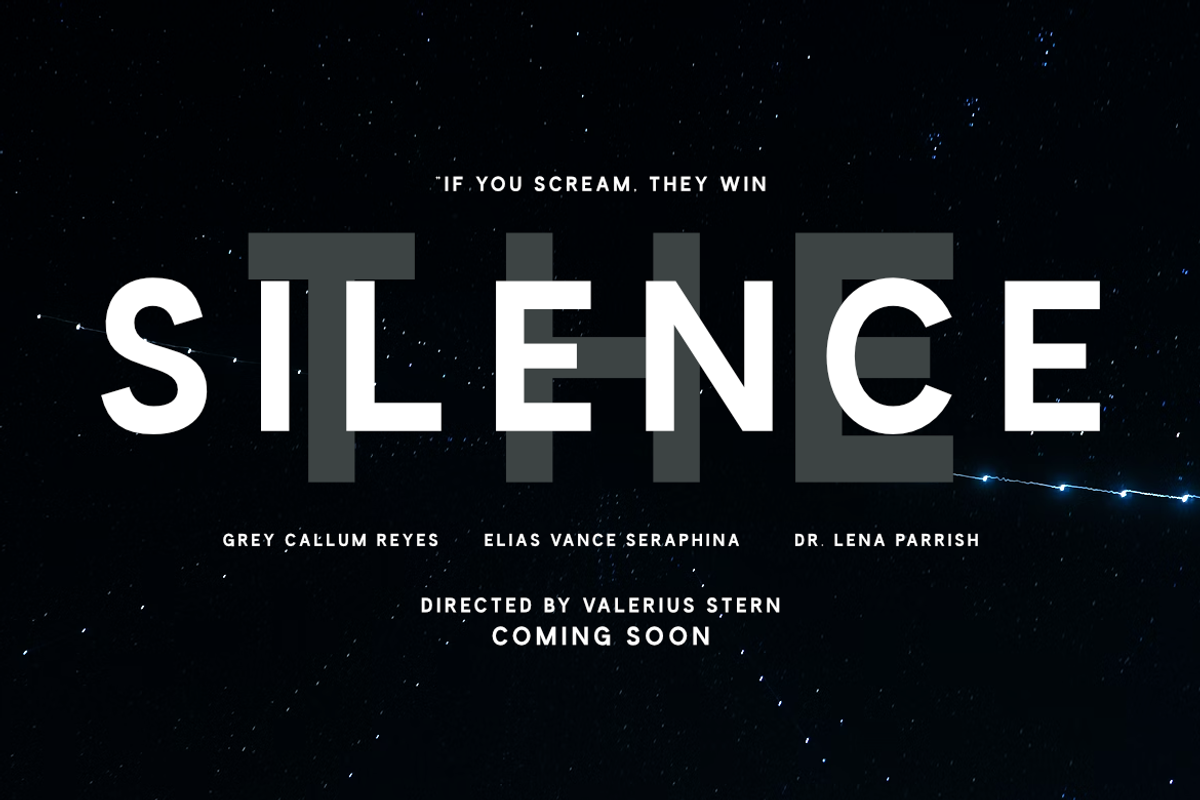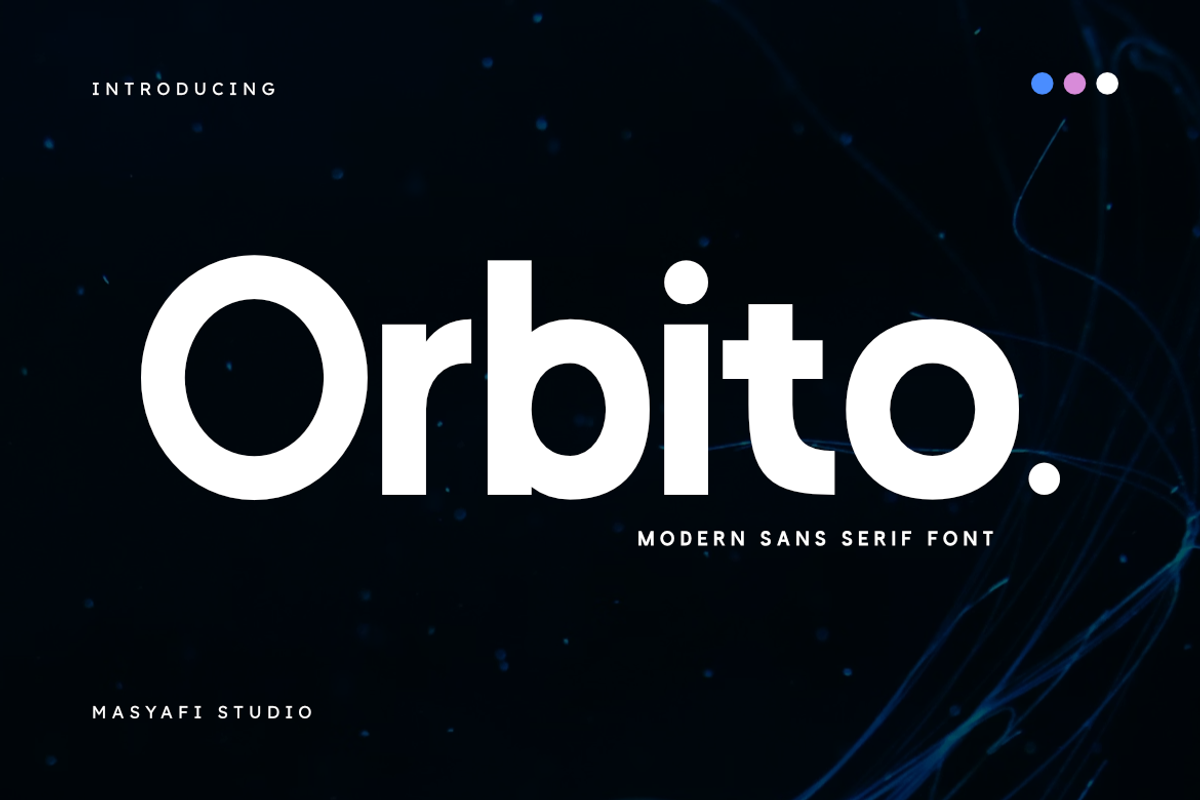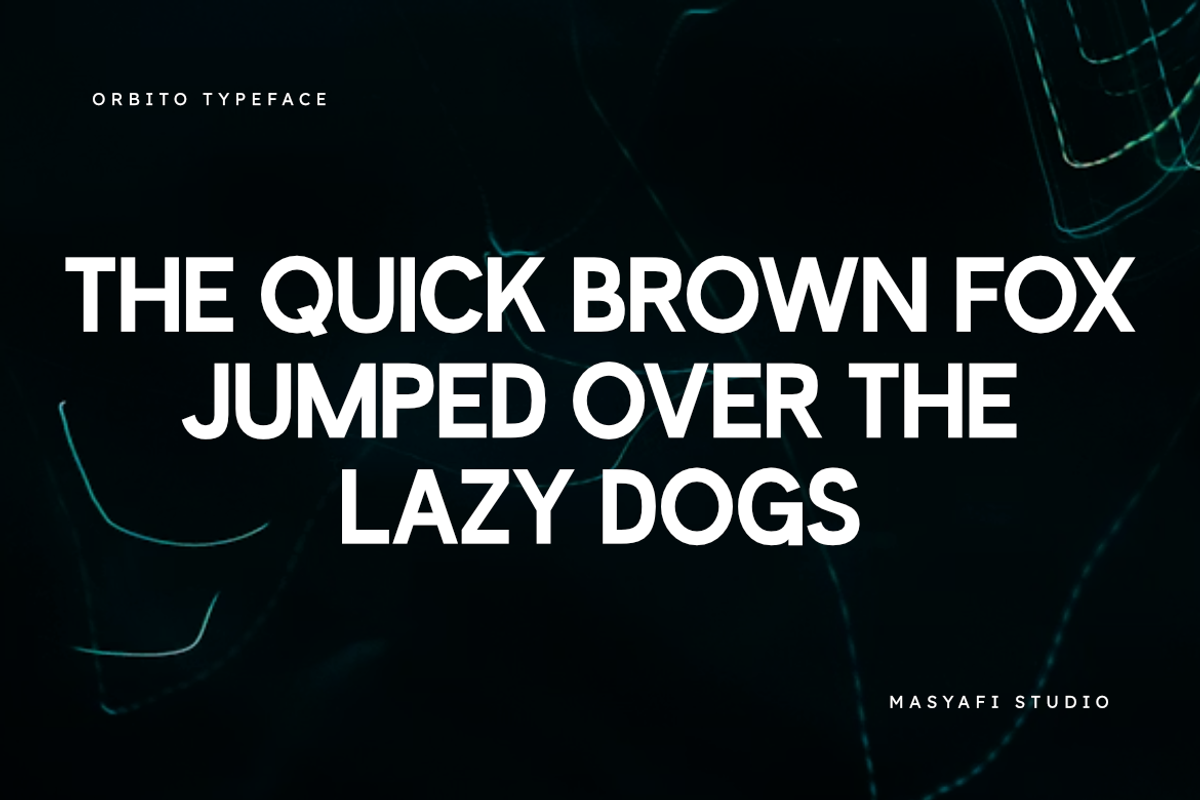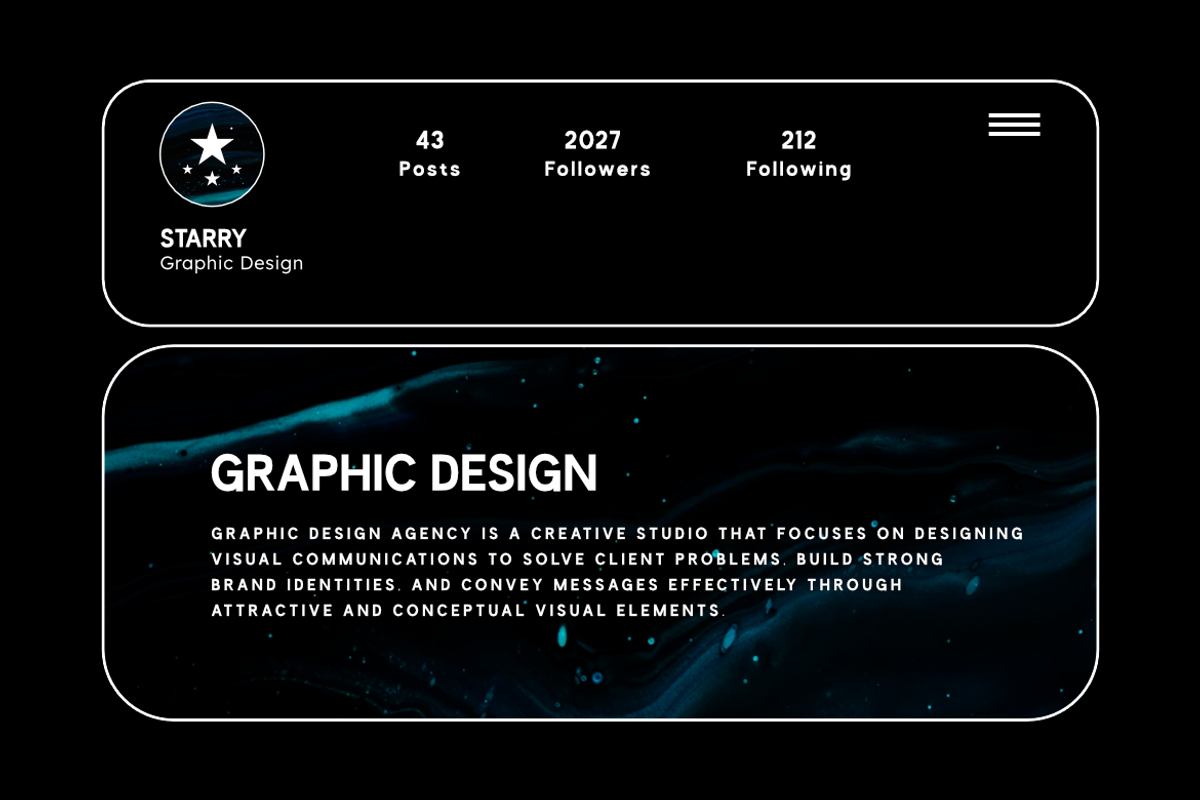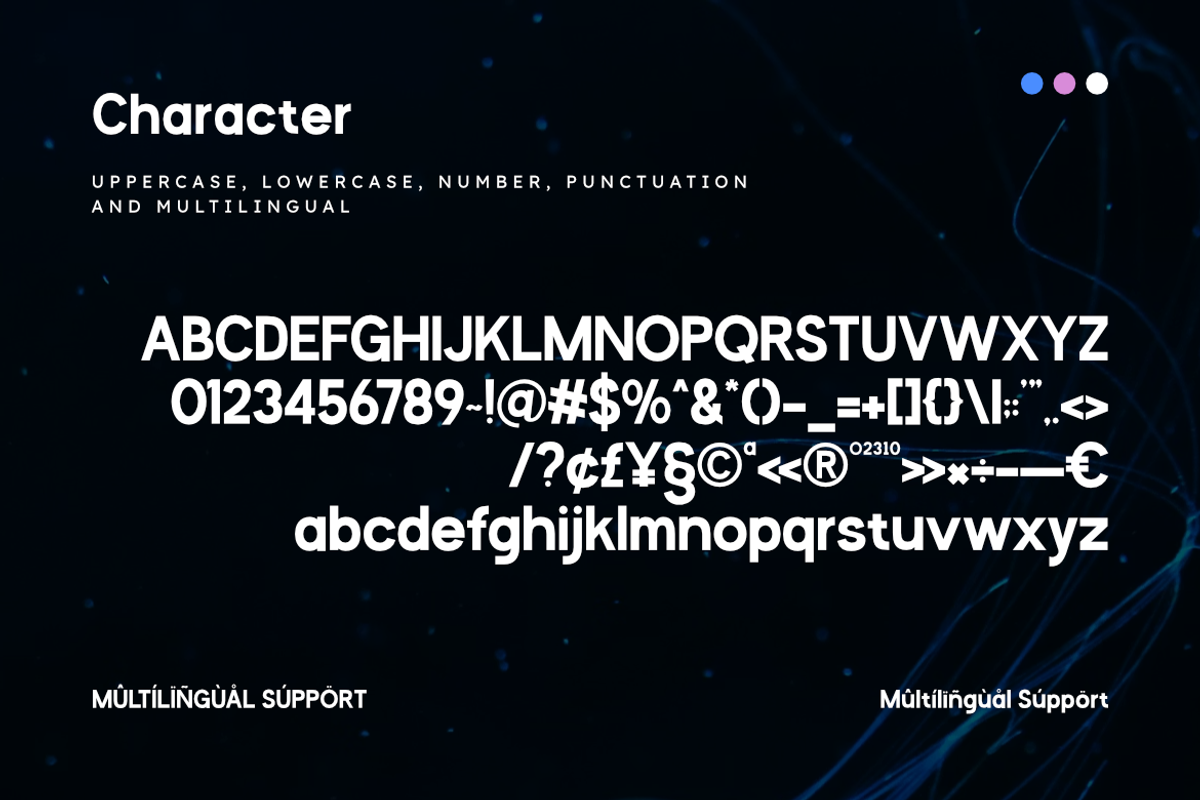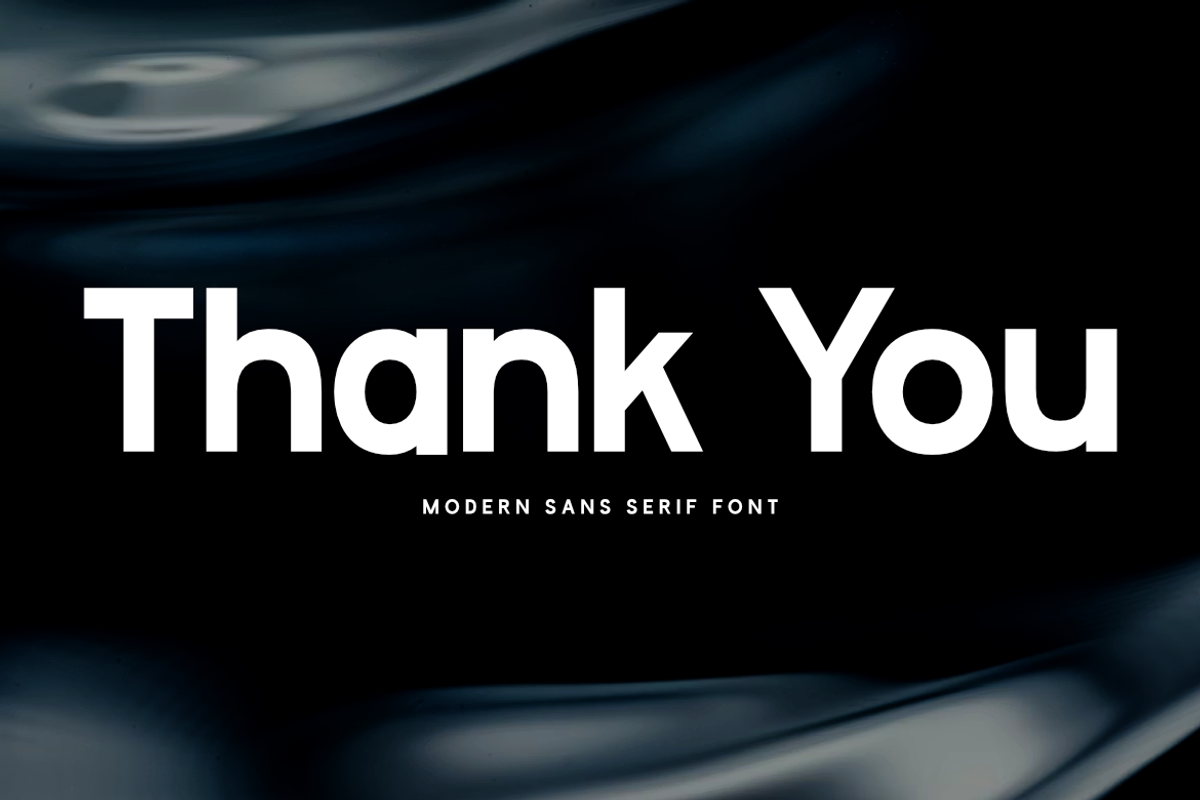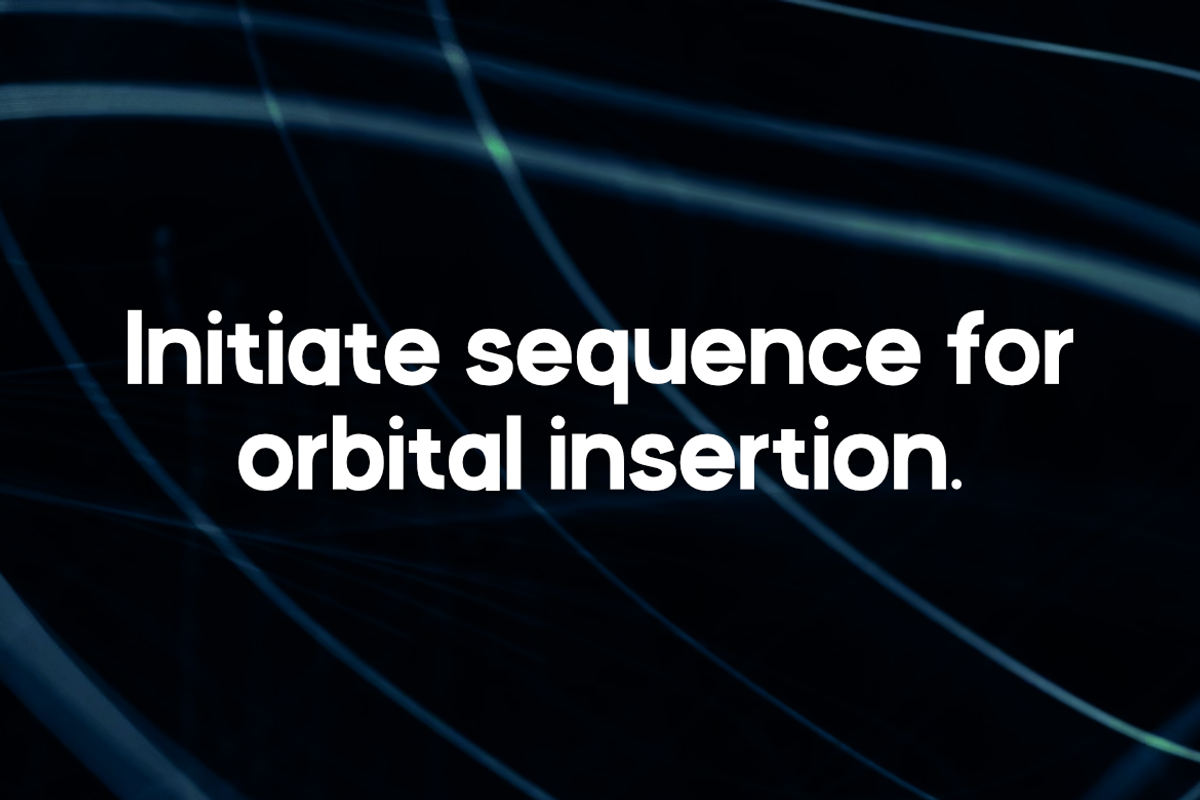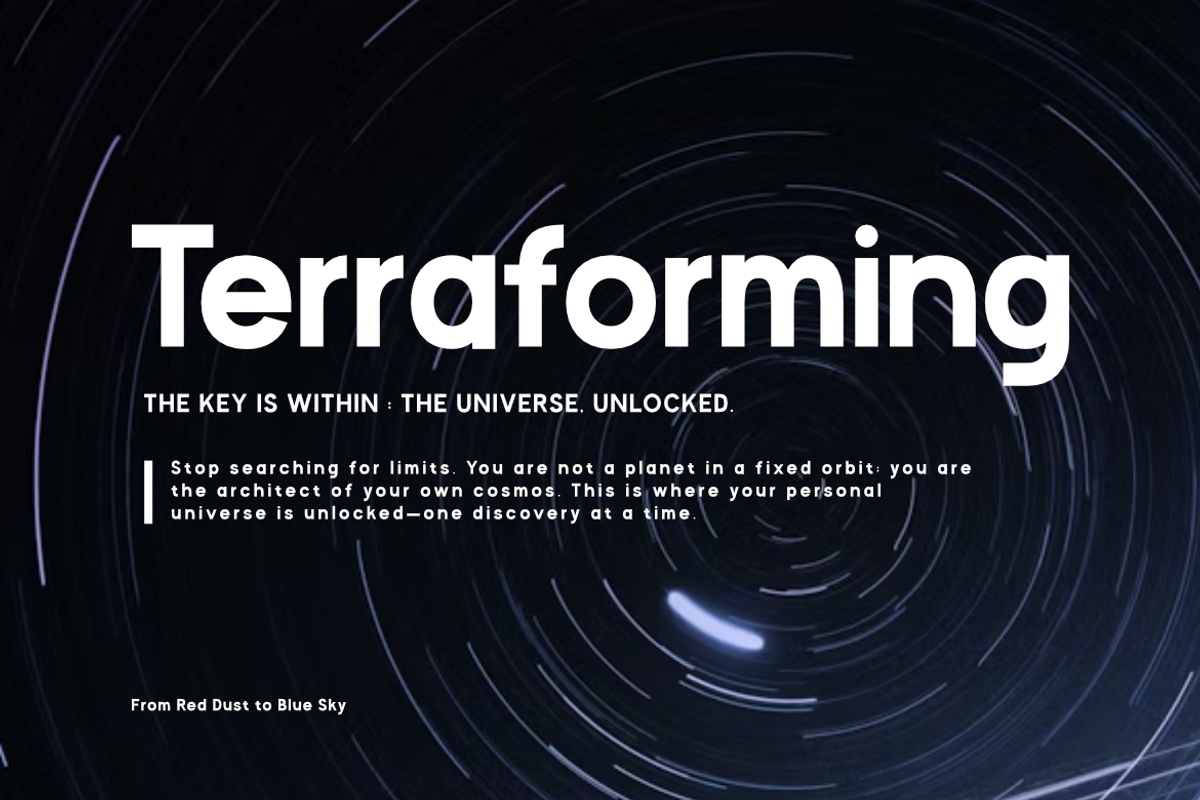
Orbito - Modern Sans Serif Font
Orbito is a modern sans serif font designed for clean, minimal, and professional design needs. It features balanced proportions, smooth geometric shapes, and excellent readability across both digital and print applications.
This font is suitable for a wide range of creative projects, from branding and logo design to websites, user interfaces, presentations, and editorial layouts. Its neutral and contemporary style allows it to adapt easily to creative, corporate, and technology-focused visuals.
Orbito is crafted for designers who need a versatile sans serif font that delivers a modern look without sacrificing clarity and usability. Whether used for headlines or supporting text, Orbito maintains a strong and professional presence.
– branding and logo design
– websites and landing pages
– ui and ux design
– presentations and pitch decks
– editorial and magazine layouts
– social media and digital content
– posters and flyers